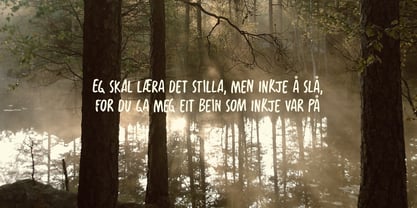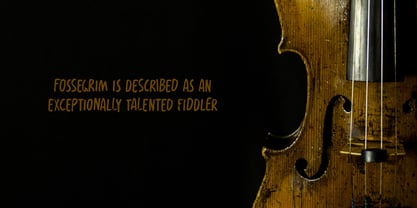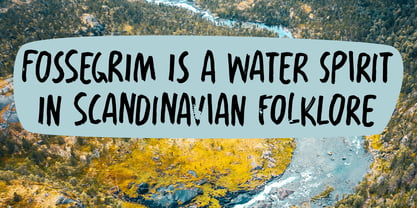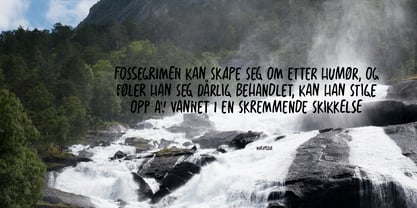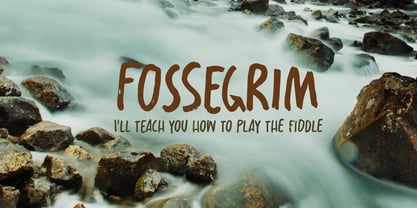
Fossegrim Pro
Die Schriftfamilie Fossegrim Pro wurde von David Kerkhoff entworfen und von Hanoded veröffentlicht. Fossegrim Pro enthält 2 Stile und Familienpaketoptionen. Mehr über diese Familie
I have always liked Scandinavian folklore, although I have to admit that I didn’t know about the Fossegrim. Fossegrim is a fiddle or harp playing water sprite - usually friendly, but he has been known to lure children and women in deep water with his music.
Fossegrim font is a little bit weird as well: I made it using a broken bamboo satay skewer and Chinese ink. It comes with extensive language support and a set of alternates for the lower case letters.
Designer: David Kerkhoff
Foundry: Hanoded
Hanoded is run by Dutchman David Kerkhoff. His fonts are a mishmash of styles, as he just creates whatever pops into his head. You will find a lot of brush fonts in his collection, as his favourite tools are brushes and Chinese ink, with cartoon style fonts and script fonts complementing his repertoire. Aside from making fonts, David occasionally guides tours in far-flung places, renovates his '30's house and tries reasoning with his wife and (teenage) kids. Not an easy task!